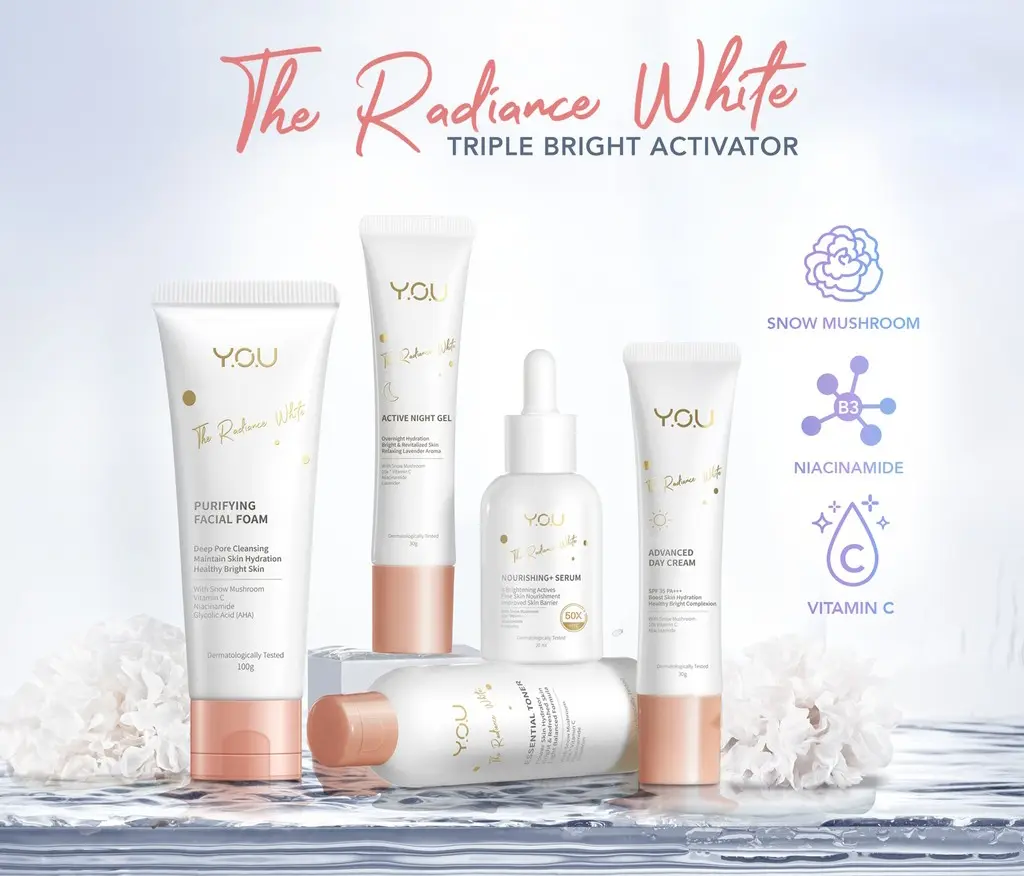
Hello Santtiny Brush Script Transforms Y.O.U’s Premium Beauty Line
More than a font, Hello Santtiny Brush Script becomes the visual heartbeat of the Y.O.U Radiance White Series branding. Its balance of minimalism and softness in every curve invites consumers to experience beauty as a form of feminine energy.
Minimalism Meets Luxury in Y.O.U’s Branding
Packaging is a critical element in the race for shelf appeal in the competitive Asian cosmetic industry. Brands must navigate a creative dialogue between two worlds: the clean, structural efficiency of minimalism and the opulent desire for luxury. For the Y.O.U. Beauty Line, the mission was to create an empowering identity that felt both exclusive and approachable.
Achieving this perception of exclusivity relies heavily on typography, transforming the text into a detailed, elegant focal point, often mirroring the effect of a hand-signed product promise. Y.O.U. achieved this by utilizing Hello Santtiny Brush Script in 2020 as its “Radiance White Series” branding element.
Why Hello Santtiny Brush Script Works Perfectly
1. Hello Santtiny Brush Script
The Hello Santtiny Brush Script is an artistic statement defined by its intentional texture that is a rough brush script font featuring clear style and dramatic movement.
2. Hello Santtiny_s Extra Swashes
This deliberate roughness adds immediate depth and creates a desirable “handcrafted luxury” effect that elevates it beyond a simple font choice.
3. Hello Santtiny_s application for photography
The Hello Santtiny font’s brush strokes and elegant swashes carry the emotional warmth of a personalized signature, aligning with the psychological concept that script fonts communicate individuality and artistic character.
4. Application for Poster
This combination of sophisticated style and creative freedom makes this typeface fitting for product packaging and branding projects that require both personalized detail and delicate quality.
The Typography Behind Y.O.U’s Visual Identity
Y.O.U. Beauty Line | Source: Lazada
The design strategy for the Y.O.U. “Radiance White Series” was built upon contrast, using typography to tell a holistic story. The key was the strategic use of a sans-serif and brush script combination. Primary product details are set in a clean, modern sans-serif, establishing the reliable foundation and ensuring legibility.
Against this disciplined backdrop, the Hello Santtiny Brush Script serves as the brand’s unique voice. The script’s dramatic movement provides a feminine yet bold accent, successfully creating a balancing effect between modern and feminine aesthetics.
The script is the emotional anchor, infusing the packaging with the “creativity and personal touch” necessary to transform the simple container into an object of aspirational beauty.
Visual Impact and Customer Perception
The precise Y.O.U. Beauty Line typography has a profound impact on customer perception and positions the brand firmly within the curated refinement sector. The artistic quality of the script draws the consumer’s eye on the shelf, signaling a commitment to artistic distinction and high-quality ingredients.
This strategic visual choice moves the product beyond functional cosmetics and into the realm of bespoke beauty. Furthermore, the consistent use of the signature script with brush style enhances eccentric brand recall and recognition.
Due to the incorporation of the Hello Santtiny Brush Script as a personal signature, Y.O.U. successfully creates a cognitive shortcut that associates its products with a unique, free-spirited, and dignified experience.
How to Utilize a Brush Font for Beauty Products
Designers can establish a particular, exclusive identity for beauty using brush script typefaces through strategic selection. Exploit contrast, using the script’s rough texture and dramatic movement to deliberately contrast a clean, minimalist layout, thereby creating a sophisticated dialogue between styles.
The brush font must be used to signal individuality, acting as the brand’s artistic signature to convey a curated individual product. Finally, it is crucial to ensure strategic placement, using the brush font as an emotional anchor alongside a legible sans-serif to achieve the ideal premium and soft look without sacrificing clarity.